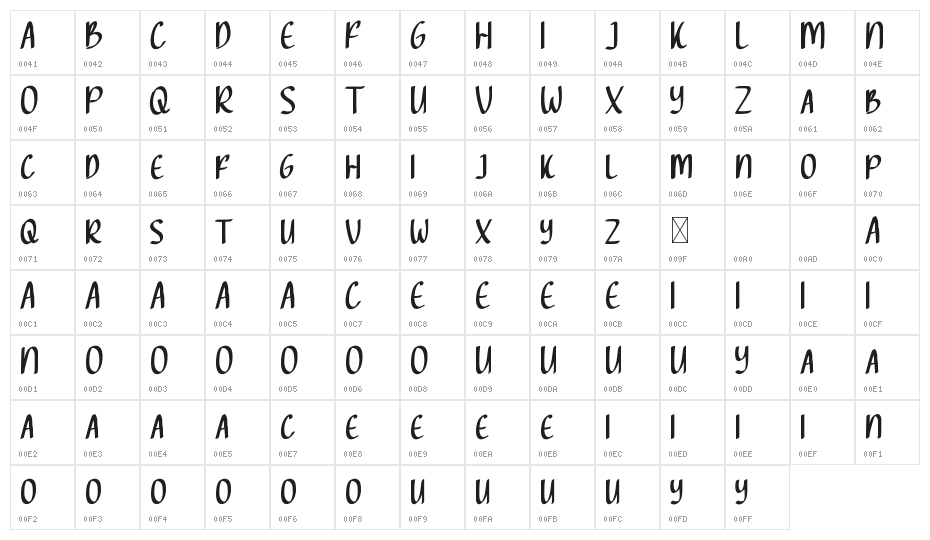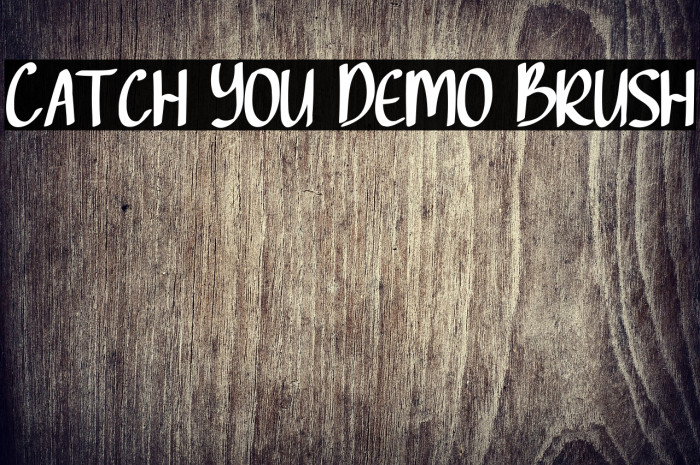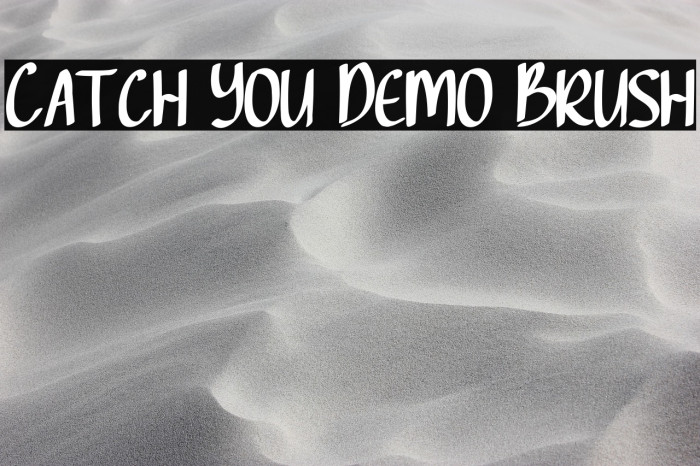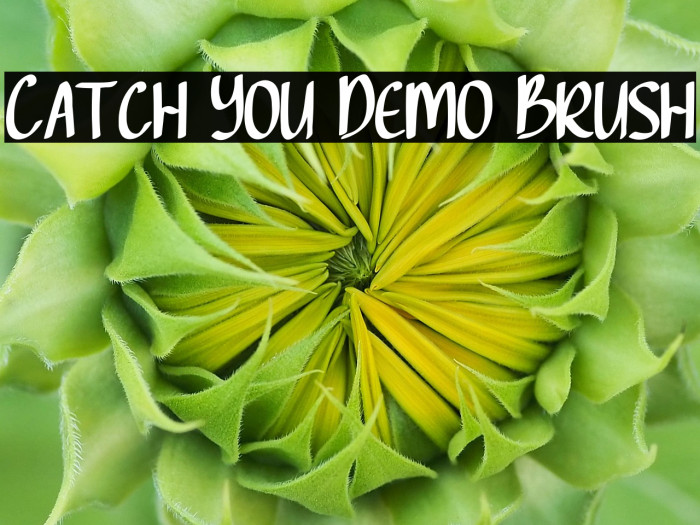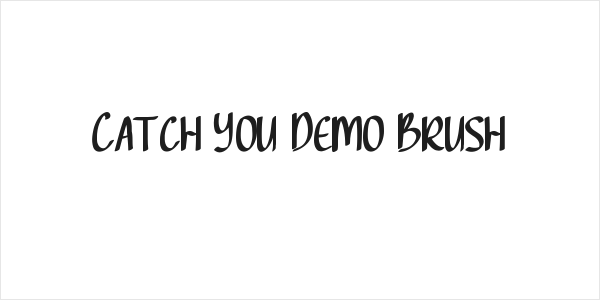
Catch You Demo Brush Font
Catch You Demo Brush Description
This font features a dynamic and energetic brush style, characterized by its bold and flowing strokes. The letters have a hand-painted appearance, with a playful and casual feel. The uppercase letters are particularly expressive, with varying stroke widths that add a sense of movement and rhythm. The lowercase letters maintain the same lively style, ensuring consistency throughout the text. This font is ideal for projects that require a personal touch, such as invitations, posters, or branding materials that aim to convey creativity and spontaneity.
| Proposed Projects | Ideal for creative projects like invitations, posters, and branding materials. |